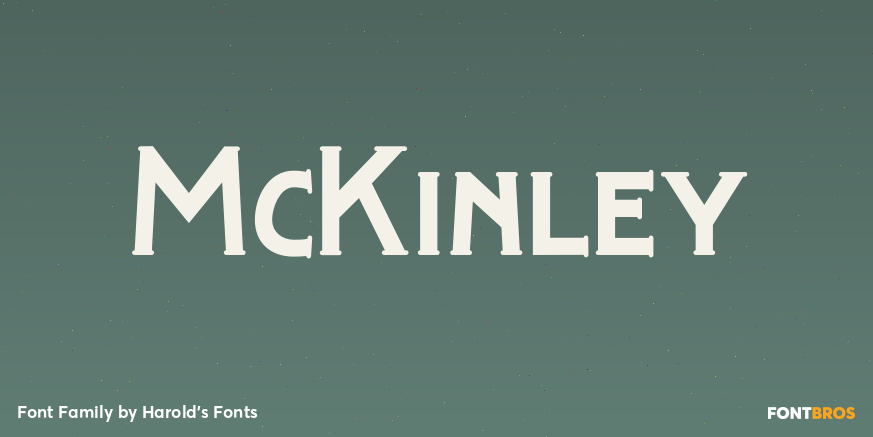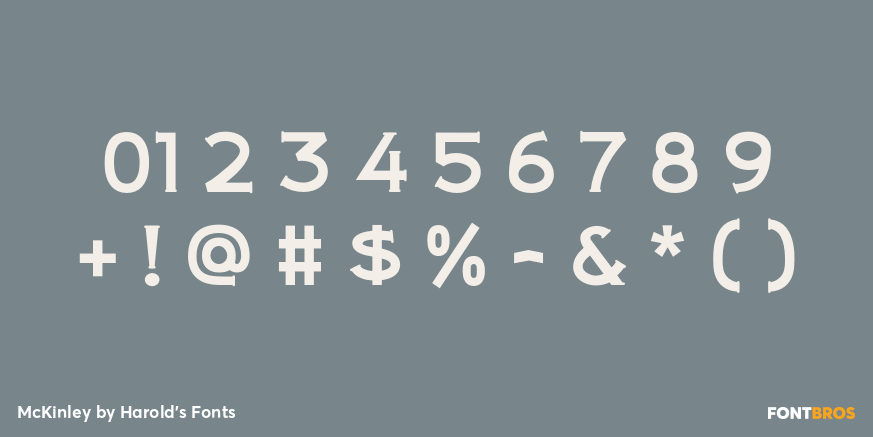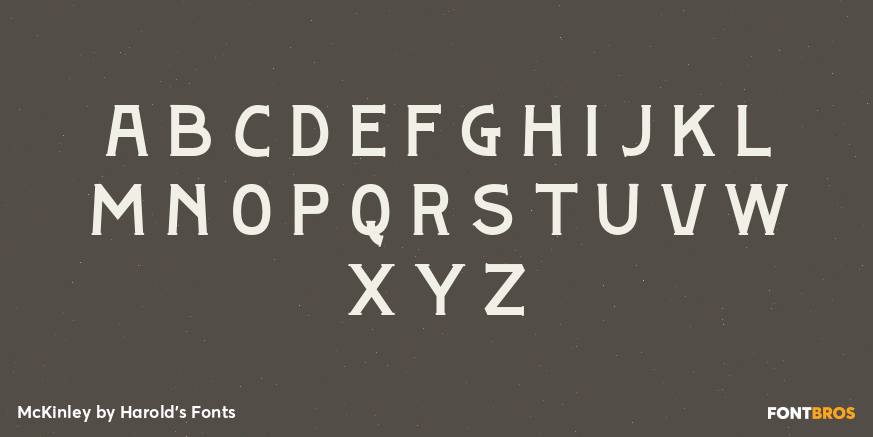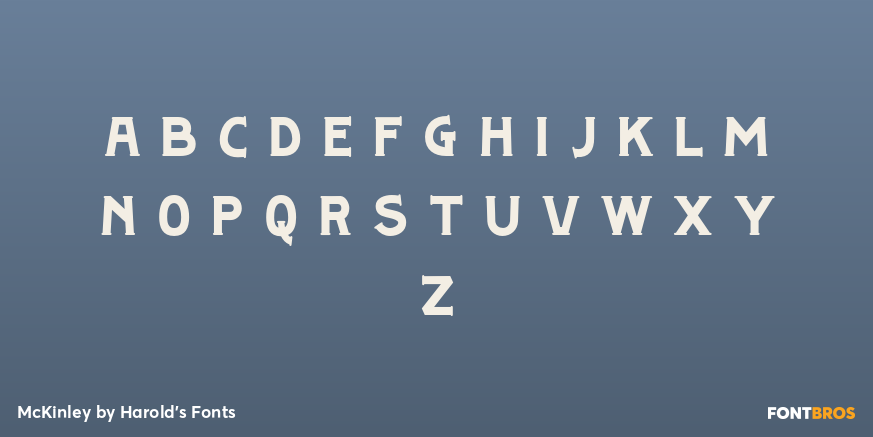
McKinley
Font Family by Harold's Fonts
McKINLEY is a series of fonts with the bold but graceful style of hand-painted signs, inspired by the titles of several early silent films, including The Great Train Robbery, The Kleptomaniac, and others directed by Edwin S. Porter for Edison Studios. Available in 3 widths, Narrow, Medium and Wide, plus fancy Swash Caps that work nicely with the Wide and Medium fonts.
McKinley Wide Swash Caps